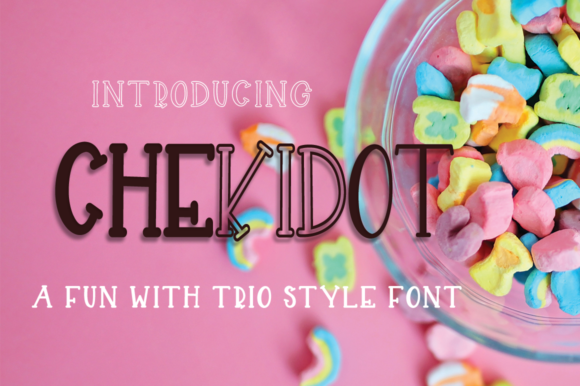
Introducing Chekidot Font: Add a Fun Feel to Your Designs
Are you tired of using the same old fonts in your designs? Look no further! The Chekidot font is here to bring a fun and playful touch to your creations. This font family comes in three weights: regular, bold, and outline, making it perfect for a wide range of design projects.
What is Chekidot Font?
The Chekidot font is a fun and modern font family designed to add a playful twist to your designs. Its unique and quirky style makes it perfect for designers and crafters who want to create eye-catching and engaging content. Whether you’re working on a graphic design project, crafting a handmade card, or creating digital content, Chekidot font is sure to make your work stand out.
Key Features of Chekidot Font
- Three weights: The Chekidot font family comes in three weights: regular, bold, and outline. This allows you to choose the perfect weight to suit your design needs.
- Fun and playful style: The Chekidot font has a unique and quirky style that’s perfect for adding a fun feel to your designs.
- Versatile: The Chekidot font can be used for a wide range of design projects, from graphic design to digital content creation.
Uses of Chekidot Font
The Chekidot font is perfect for a variety of design projects, including:
- Graphic design: Use the Chekidot font to create eye-catching posters, flyers, and brochures.
- Digital content creation: Add a fun and playful touch to your blog posts, social media graphics, and email newsletters.
- Crafting: Use the Chekidot font to create handmade cards, scrapbook pages, and other paper crafts.
- Branding: The Chekidot font can be used to create a fun and playful brand identity for your business.
Tips for Using Chekidot Font
Here are some tips for using the Chekidot font in your designs:
- Pair with other fonts: Experiment with pairing the Chekidot font with other fonts to create a unique and interesting look.
- Use in moderation: While the Chekidot font is fun and playful, it can be overwhelming if used too much. Use it in moderation to create a balanced design.
- Experiment with colors: The Chekidot font looks great in a variety of colors. Experiment with different colors to find the perfect one for your design.
The Chekidot font is a fun and playful font family that’s perfect for adding a fun feel to your designs. With its three weights and versatile style, it’s suitable for a wide range of design projects. Whether you’re a designer, crafter, or digital content creator, the Chekidot font is sure to become a favorite in your font collection.